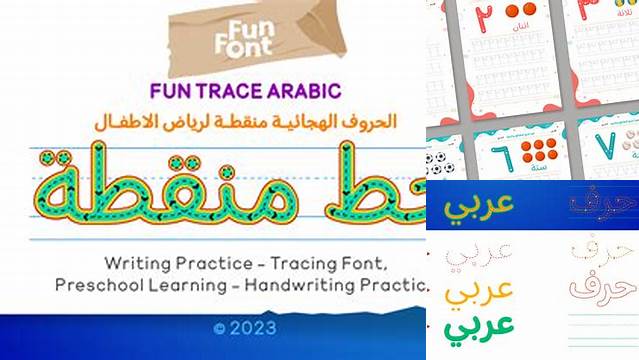
Fun Trace Arabic Font: Free Download & Uses
Are you looking for fun trace Arabic fonts? Look no further! This article will delve into the exciting world of Arabic calligraphy and typography, focusing on trace fonts that are perfect for learning, creative projects, and adding a unique flair to your designs. We'll explore what trace fonts are, where you can find them for free, and how you can use them in various projects. Whether you're a student learning the Arabic alphabet, a designer seeking a distinctive font, or simply a lover of beautiful scripts, this guide has something for you.
What are Trace Arabic Fonts?
Trace Arabic fonts, guys, are basically like training wheels for your calligraphy skills! Think of those dotted lines you used to follow when learning to write as a kid. Trace fonts work on the same principle. They provide a guideline, a skeletal structure of the Arabic letters, which you can then trace over. This method is incredibly beneficial for several reasons. Firstly, it helps you understand the fundamental strokes and shapes that form each letter. Arabic script, with its flowing curves and connections, can seem daunting at first. Tracing simplifies the process by breaking down the letters into manageable components. You get to physically engage with the writing process, developing muscle memory and a feel for the correct letterforms. Secondly, using trace fonts can dramatically improve your handwriting. By repeatedly tracing, you internalize the proportions and spacing of the letters, leading to neater and more consistent writing. This is particularly helpful for beginners who are just starting to learn the Arabic alphabet or for those who want to refine their existing handwriting skills. Finally, trace fonts aren't just for practice; they can also be a fantastic creative tool. Imagine using a trace font as a base for a stunning calligraphy piece, adding your own personal flourishes and embellishments to the traced letters. You can create unique and eye-catching designs for invitations, posters, logos, and more. So, whether you're a student, a designer, or simply someone who appreciates the beauty of Arabic script, trace fonts offer a versatile and enjoyable way to engage with this ancient art form.
How to Use Trace Arabic Fonts in Your Projects
Now that you've got your hands on some awesome trace Arabic fonts, let's talk about how to put them to work! The possibilities are seriously endless, whether you're a student, a designer, or just someone who loves playing with typography. For students, trace fonts are a total game-changer when it comes to learning the Arabic alphabet and improving handwriting. Think of them as your personal calligraphy coach! You can print out worksheets with trace fonts and practice writing each letter repeatedly, focusing on the correct strokes and connections. This hands-on approach helps build muscle memory and develop a solid foundation in Arabic script. You can also use trace fonts to create your own practice notebooks or flashcards, making the learning process more engaging and personalized. But the fun doesn't stop there! For designers, trace fonts can be a fantastic starting point for creating unique and eye-catching designs. Imagine using a trace font as the base for a logo, invitation, or poster, and then adding your own creative flair and embellishments. You can fill in the traced letters with different colors, patterns, or textures, or even use them as a stencil for hand-painted designs. Trace fonts can also be a great way to experiment with different calligraphic styles and techniques, without having to start from scratch each time. And for personal projects, guys, trace fonts are a blast! You can use them to create personalized greeting cards, decorate journals, or even design your own Arabic-themed artwork. How about creating a beautiful framed quote in Arabic calligraphy for your home? Or designing custom stickers or labels with your name or a favorite phrase? The only limit is your imagination! So, grab those trace fonts, fire up your creativity, and start exploring the wonderful world of Arabic typography. You might just surprise yourself with what you can create!
Creative Projects with Trace Arabic Fonts
Let's get those creative juices flowing and dive into some specific project ideas using trace Arabic fonts! Forget just practicing your handwriting (although that's super important too!). We're talking about projects that will wow your friends, family, or even clients. First up, personalized gifts are always a winner. Imagine creating a custom-made mug with a beautiful Arabic calligraphy design featuring a loved one's name or a meaningful quote. You can use a trace font as the base, then add your own unique touches with colors, patterns, or even hand-painted elements. Or how about designing a set of elegant greeting cards for special occasions like Eid or Ramadan? You can use different trace fonts to create a variety of styles, from traditional to modern, and personalize each card with a handwritten message. Another fantastic idea is creating home décor items. Think framed calligraphy prints, wall decals, or even decorative pillows. A stunning Arabic phrase or a single, beautifully rendered letter can add a touch of elegance and sophistication to any room. You can experiment with different colors, textures, and materials to create truly unique pieces that reflect your personal style. For business owners and marketers, trace Arabic fonts can be a powerful tool for branding and promotion. Imagine designing a logo or marketing materials with a distinctive Arabic typeface that captures the essence of your brand. You can use trace fonts as a starting point to create a custom font that is both visually appealing and culturally relevant. This can be particularly effective for businesses targeting Arabic-speaking audiences or those looking to add an exotic touch to their brand identity. And let's not forget the power of social media! You can use trace fonts to create eye-catching graphics and captions for your Instagram, Facebook, or Twitter posts. A beautifully rendered Arabic phrase or quote can instantly grab attention and convey a sense of authenticity and sophistication. So, guys, the next time you're looking for a creative project, don't underestimate the power of trace Arabic fonts. They're a versatile and fun tool that can help you create stunning designs and express your unique style.
Conclusion: Embrace the Beauty of Trace Arabic Fonts
So, there you have it! We've explored the wonderful world of trace Arabic fonts, from understanding what they are and where to find them for free, to unleashing their creative potential in various projects. Hopefully, you're feeling inspired and ready to dive into the world of Arabic calligraphy and typography. The beauty of trace fonts lies in their accessibility. They bridge the gap between the complexity of Arabic script and the desire to learn and create. Whether you're a complete beginner or a seasoned designer, trace fonts offer a valuable tool for mastering the art of Arabic writing and adding a touch of elegance to your designs. Remember, guys, learning a new script takes time and practice, but it's a rewarding journey. Don't be afraid to experiment, try different styles, and most importantly, have fun! The more you practice, the more confident you'll become, and the more beautiful your Arabic calligraphy will be. And who knows, maybe you'll even develop your own unique style and create stunning calligraphy pieces that will inspire others. So, go ahead, download some free trace Arabic fonts, grab a pen or stylus, and start tracing your way to beautiful Arabic writing. The possibilities are endless, and the journey is sure to be a rewarding one. Embrace the beauty of the Arabic script, and let your creativity flow!